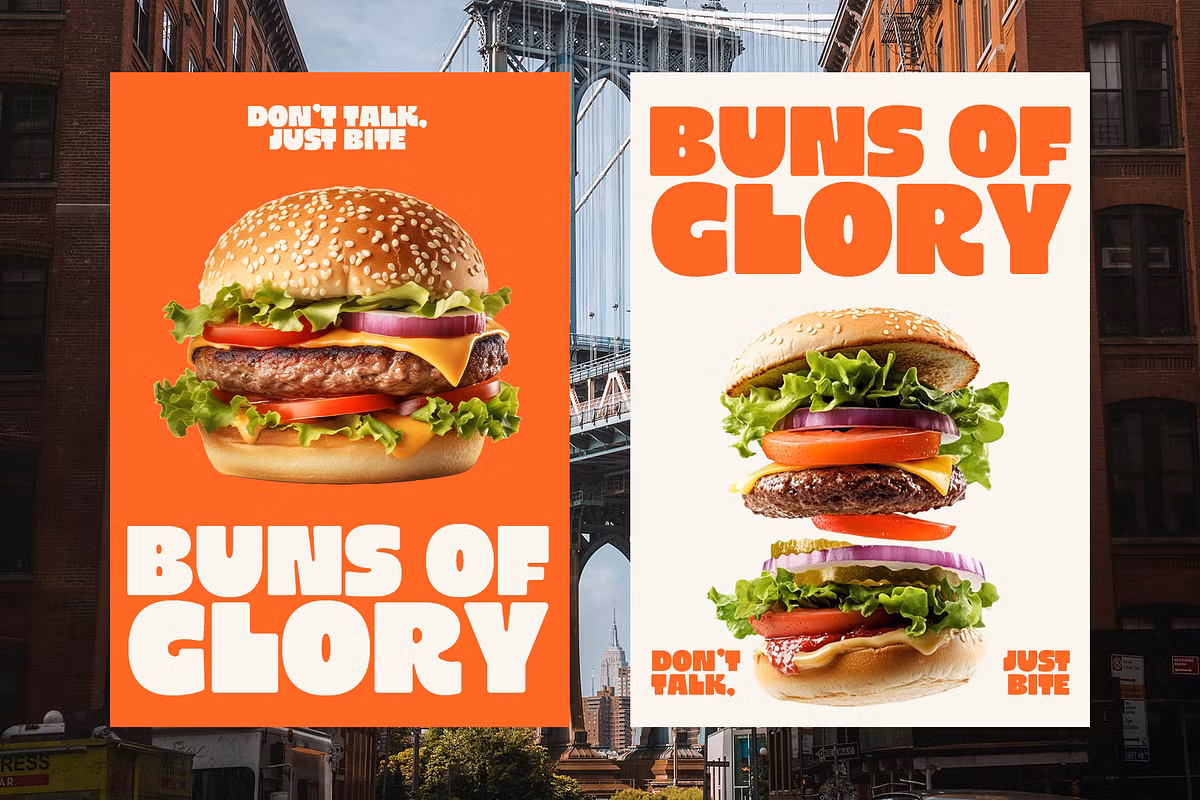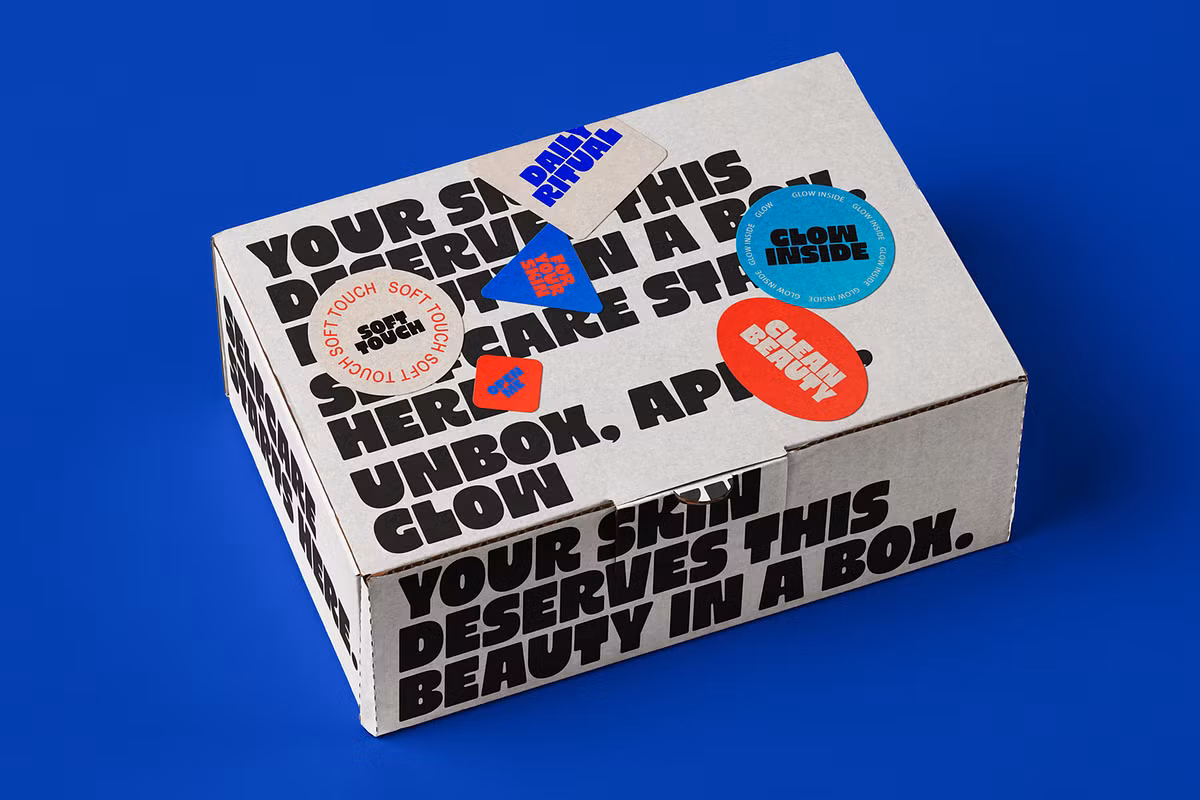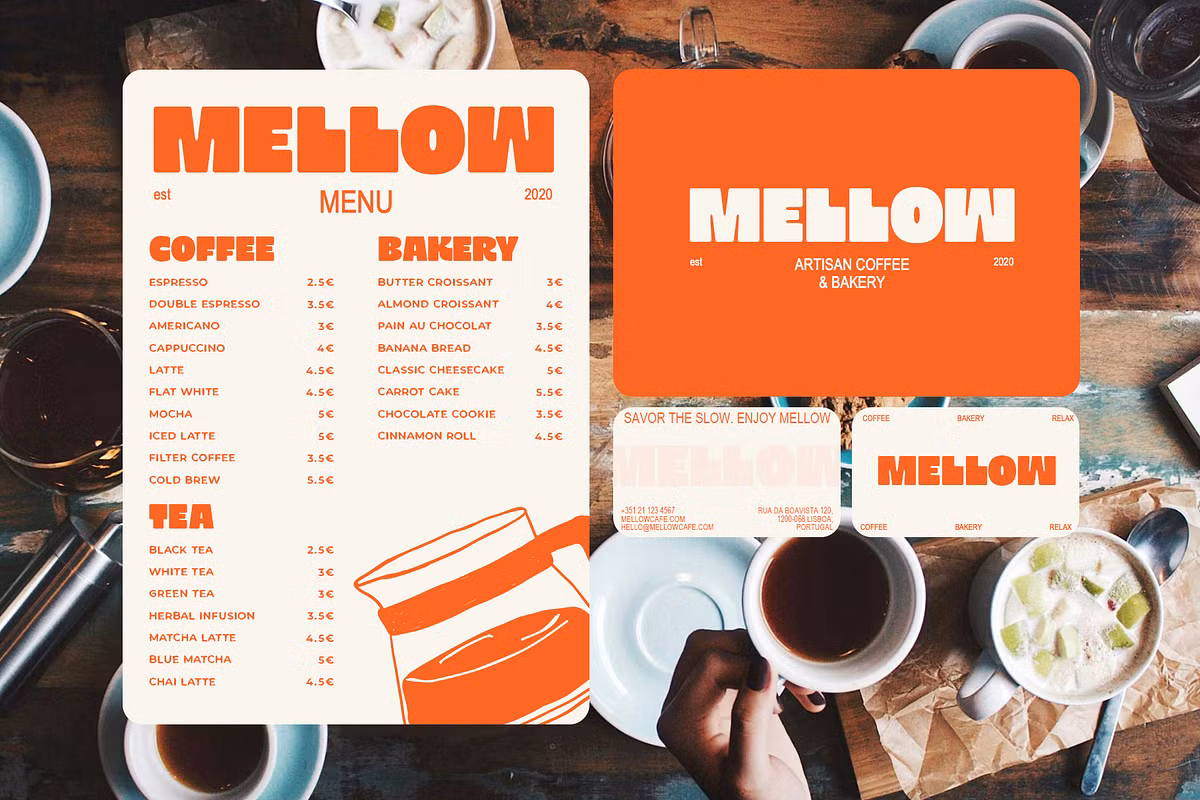
Extra Chunk Please Ultra Bold Sans: Modern Display Font for Bold Design
I am excited to share Extra Chunk Please. Extra Chunk Please is the display font that mixes the shapes with the style. Extra Chunk Please has the edges and the strong letter shapes. I find Extra Chunk Please works well for the text layouts. I use Extra Chunk Please for the brand designs and, for the media pictures. Extra Chunk Please gives me the flexibility. Makes my designs stand out. Extra Chunk Please works.
The design of Extra Chunk Please mixes boldness and simplicity. The rounded edges make Extra Chunk Please feel friendly and easy to read. The strong shape of Extra Chunk Please catches the eye. Extra Chunk Please works for designs that need impact and personality.
I think bold geometry gives the design weight and makes the design a good choice for headlines and titles. I also see minimalism in the design works in quieter settings. Playful minimalism provides a balance of fun and professionalism. Extra Chunk Please has a style. Extra Chunk Please stands out from the typefaces. The modern style of Extra Chunk Please connects with the audiences that look for design ideas.
Extra Chunk Please has a full character set that makes multilingual communication simple. The character set helps brands that work in markets. Helps designers who want a global audience. Extra Chunk Please works with languages. Extra Chunk Please makes the message clear. Extra Chunk Please lets the message work across cultures.
Extra Chunk Please supports languages. Extra Chunk Please also includes punctuation. The full punctuation lets you create typography in the designs you make. The range of characters in Extra Chunk Please gives you the ability to write any idea you want. There are no limits on the ideas you can put into the designs, with Extra Chunk Please. The font works well for design projects.
When I work with the font I see that the font is PUA encoded so I can get the characters and symbols easily. The PUA encoding makes the font easy to use. The font lets designers add elements to their work without difficulty.
Many people use Extra Chunk Please. Extra Chunk Please becomes a part of today’s design projects. Here are some of the ways to use Extra Chunk Please:
- Minimal Branding and Packaging: The lines and bold shape of Extra Chunk make Extra Chunk a solid choice, for branding projects that need a look. I have seen Extra Chunk work well on product packaging. Extra Chunk helps the brand stand out on the shelves.
- Bold Editorial Design: Whether it is for the magazines, the newsletters or the online publications, Extra Chunk Please can lift the layouts. When I use Extra Chunk Please, it gives the headlines a presence that makes them pop. Extra Chunk Please adds a side that gives the content personality.
- Clean Menus and Posters: When I design the event flyers or the restaurant menus, I pick this font. This font gives readability and a simple look. This font is a choice for any material that the public will see.
- Social Media Graphics: I notice that social media graphics need attention. In the world of media, getting the attention fast is important. Extra Chunk Please works well for making social media graphics that get the audience’s eye away.
The versatility of Extra Chunk Please makes it an excellent choice for various design applications. It can be paired with other fonts to enhance clarity and aesthetics while maintaining a bold and modern look. Experimenting with different combinations can reveal exciting results that elevate any design project.
In conclusion, Extra Chunk Please is more than just a font; it’s a design tool that offers unique characteristics to make any project stand out.